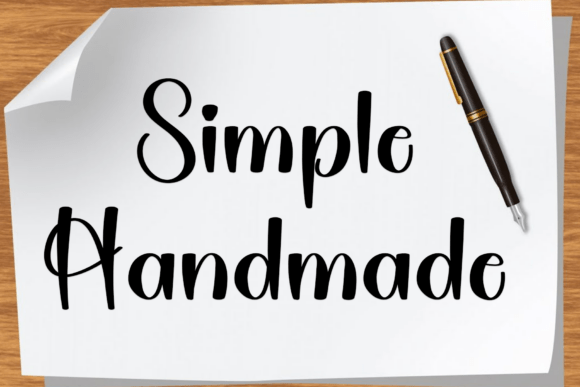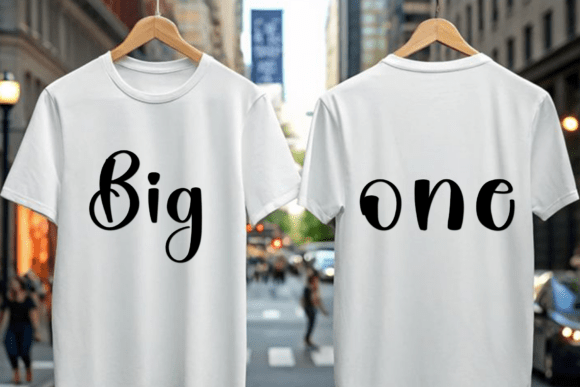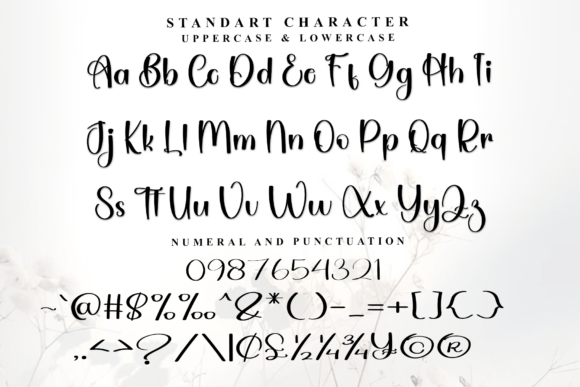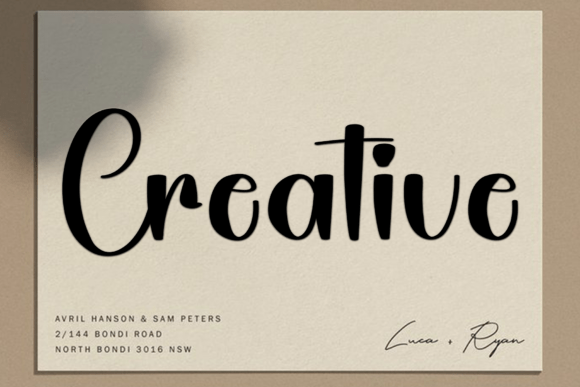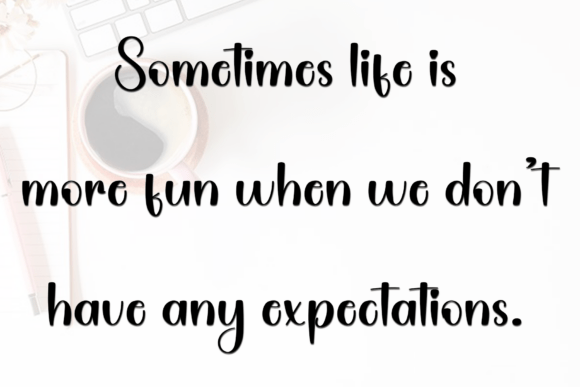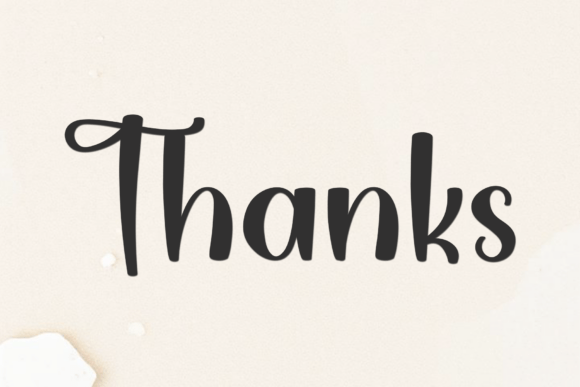
Discover the Beauty of House Highland Font
Remember that moment when you stumbled upon the perfect font for your design project? The excitement, the thrill of seeing your ideas come to life, and the sense of satisfaction that only a well-chosen font can bring. For designers and creatives, finding the right font can be a game-changer. This is exactly what House Highland Font offers – a beautiful and eye-catching typeface that will elevate your designs and captivate your audience.
House Highland Font is a versatile and unique typeface designed to add a touch of elegance and sophistication to any project. Its soft strokes and distinctive character make it perfect for a wide range of applications, from design projects to crafts and creative works. With its compatibility with various platforms, including Windows and open-source systems, House Highland Font is an ideal choice for designers looking to add a personal touch to their work.
House Highland Font Key Features
- Unique Characteristics: Distinctive, hand-drawn style with a rustic, vintage feel; Ideal for creating a warm, welcoming atmosphere in branding, advertising, and packaging
House Highland Font Review
Overall, I was quite impressed with the House Highland Font. It has a unique and elegant feel to it. ✨ The font is perfect for creating a luxurious and sophisticated atmosphere, which makes it ideal for high-end branding or packaging design.
- Unique and elegant feel ✨
- Perfect for high-end branding or packaging design
- Good legibility, even at smaller font sizes
- May not be suitable for body text due to its formal and elegant feel ⚠️
- May be difficult to read at very small font sizes ⚠️
- Limited character set, which may limit its use in certain contexts ⚠️
Overall, I would highly recommend the House Highland Font for designers looking to create a luxurious and sophisticated atmosphere. However, it’s essential to consider the limitations and use it in contexts where it will shine.
Tips for Getting the Most Out of House Highland Font
House Highland Font is a versatile font that can be used for a variety of purposes. Here are some tips for getting the most out of it:
- Use it for headings and titles to add a touch of elegance and sophistication.
- Pair it with other fonts to create a unique and eye-catching design.
House Highland Font is commonly used for:
- Food and beverage branding. Alternatives to House Highland Font
Great Vibes is a beautiful script font that resembles a handwritten feel. It is perfect for use in invitations, wedding stationery, and any other design where a personal touch is needed. Great Vibes is more elegant and refined compared to House Highland Font, which has a more rustic and casual feel.
Alex Brush is a luxurious script font that is ideal for use in high-end branding, packaging, and advertising. It is more polished and sophisticated compared to House Highland Font, which is more casual and relaxed. Alex Brush is perfect for designers who want to convey a sense of luxury and elegance.
Playfair Display is an elegant and luxurious serif font that is perfect for use in headings and titles. It is more formal and sophisticated compared to House Highland Font, which is more casual and relaxed. Playfair Display is ideal for designers who want to add a touch of sophistication and elegance to their designs.
Carolyna Pro is a modern and elegant script font that is perfect for use in branding, packaging, and advertising. It is more refined and sophisticated compared to House Highland Font, which is more casual and relaxed. Carolyna Pro is ideal for designers who want to convey a sense of luxury and sophistication.